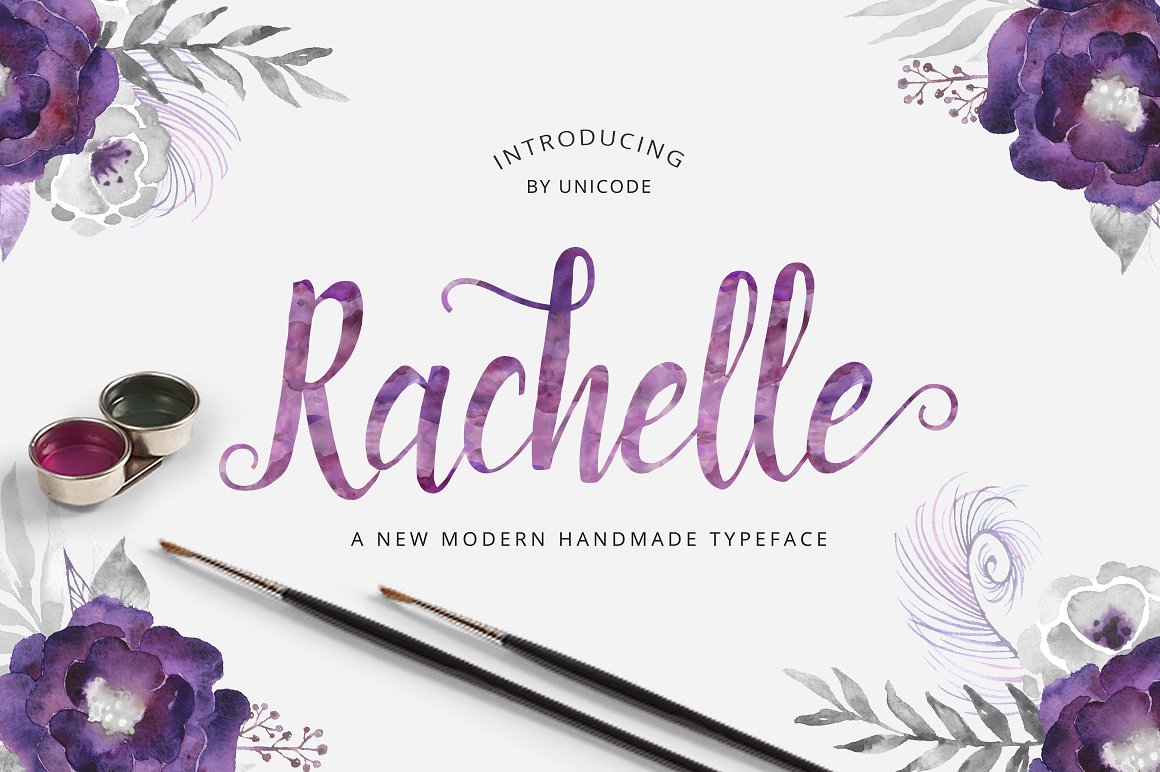
Rachelle Script
Rachelle Script Font
Rachelle is a beautiful and modern handwriting script Typeface with inreguler baseline. this font Suitable for any project products, such as wedding invitations, greeting cards, design of water-based paints, correspondence, and a variety of other purposes and more. this font multiple international language support, the choice of useful unique ligatures and more alternate style, you can get it on this font.